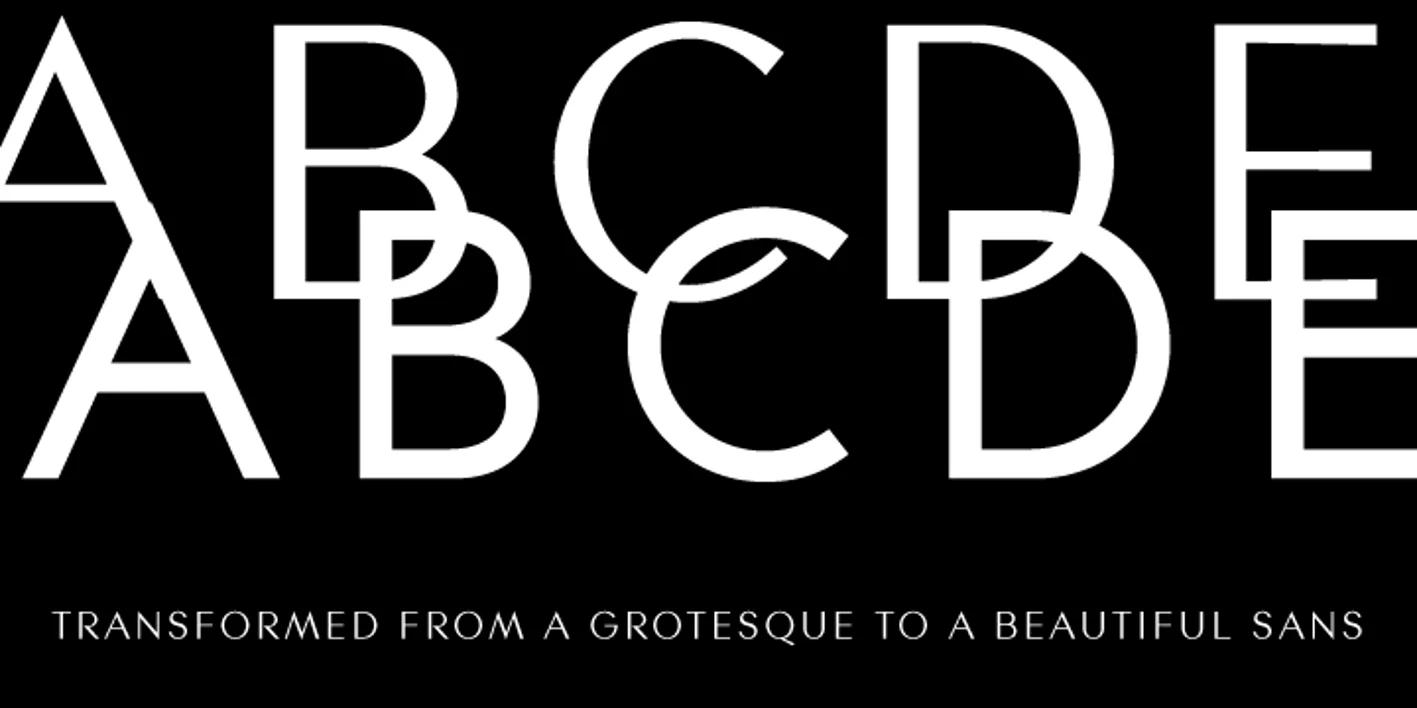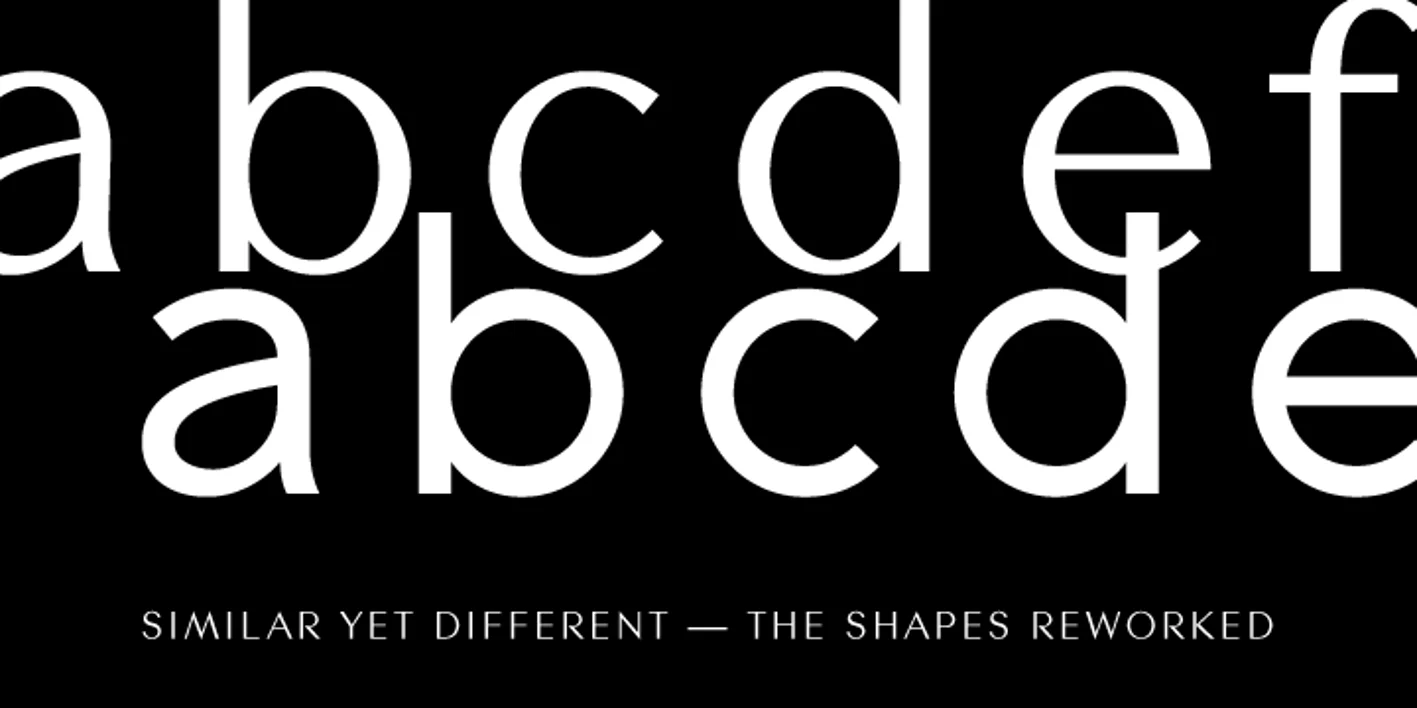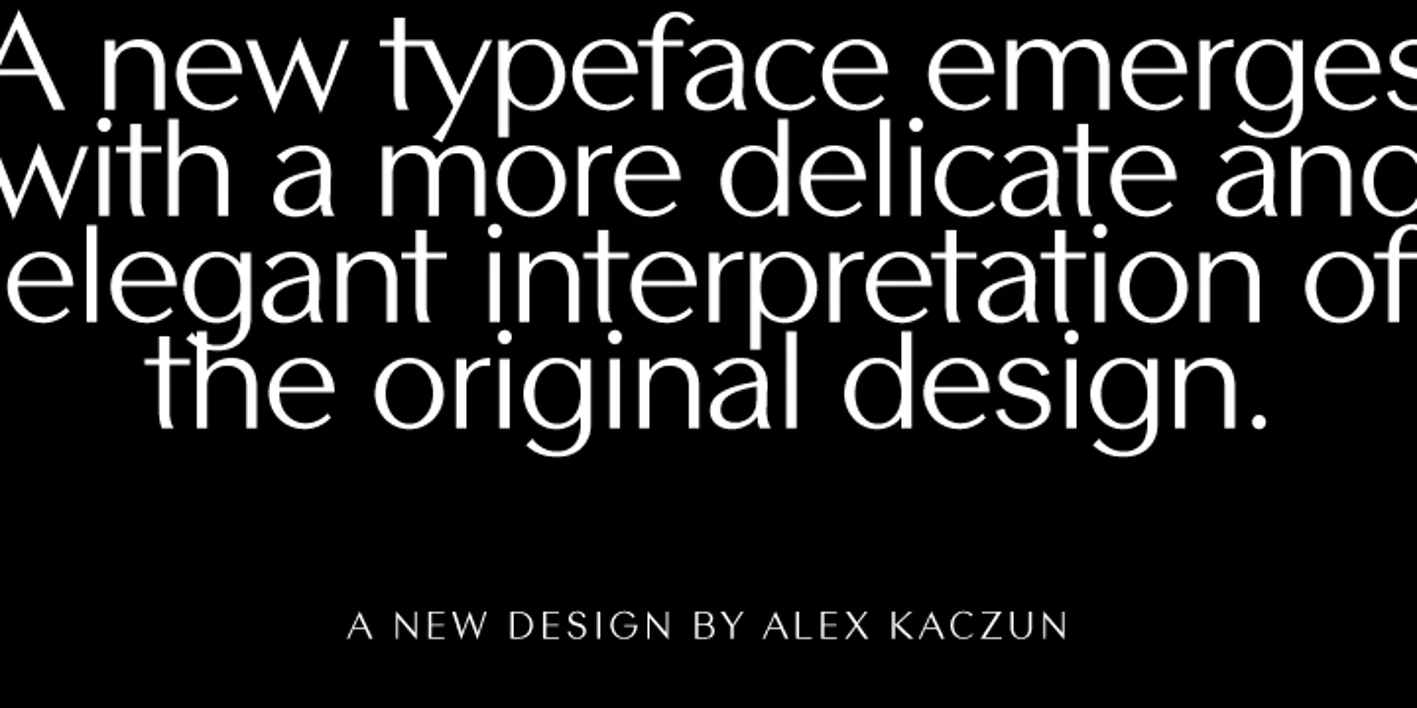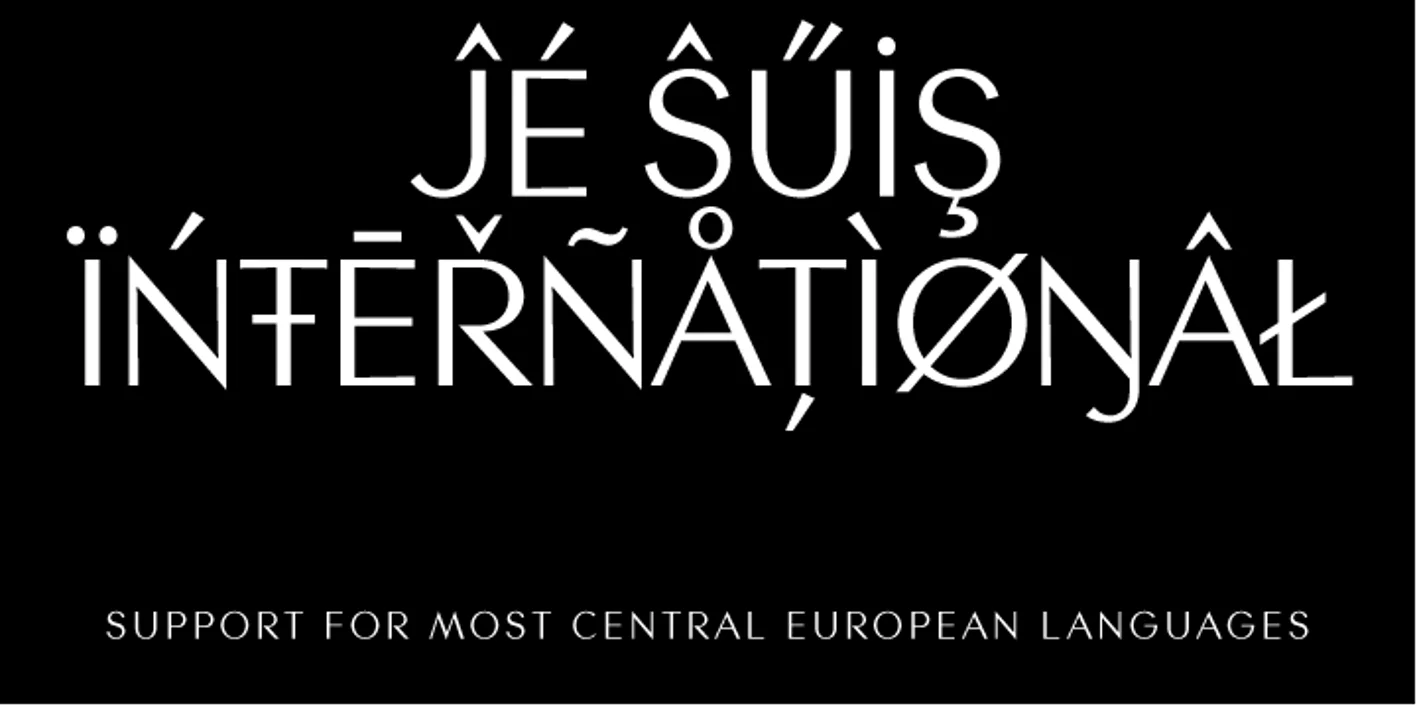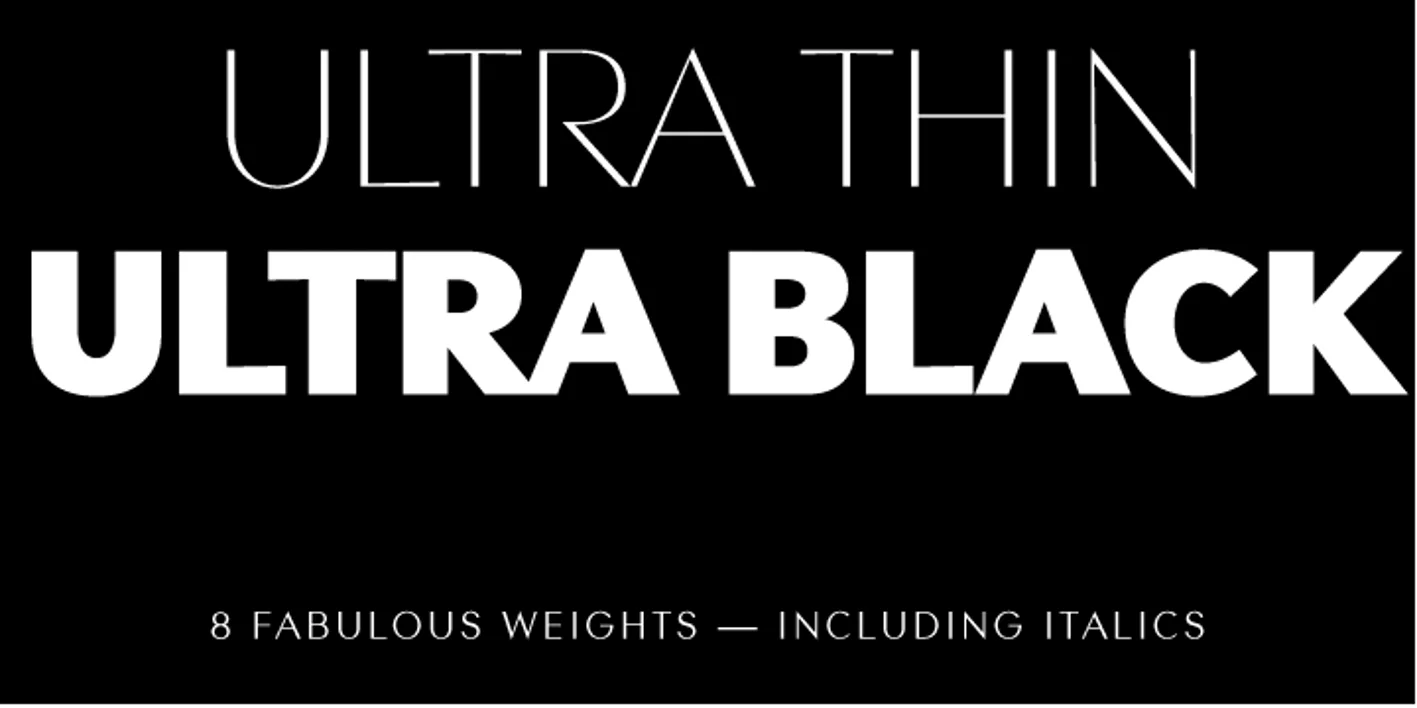
Contax Sans Font
Typography shapes perception at a subconscious level. Contax Sans leverages consistent type colour across continuous text to make every composition feel considered. The typeface brings a clean, humanist sensibility to a broad range of creative disciplines, with a confident voice that adapts to diverse briefs that holds up whether the work is print-first or screen-first.
In practice, Contax Sans proves particularly effective for startup identities, signage systems, presentation decks, social media graphics, environmental graphics. Designers reaching for it find that the type decisions feel resolved rather than laboured — a useful quality when client timelines are tight.
The range of applications extends to web design, product packaging for tech brands, packaging design, e-commerce design. That breadth is deliberate: the proportions and spacing were stress-tested across a wide range of mock briefs before the typeface was finalised.
The letterforms follow humanist construction principles: slightly flared stroke terminals, open apertures, and carefully differentiated characters (g, l, I, 1) that eliminate ambiguity in UI and wayfinding contexts. Metrics are optimised for screen rendering at all sizes.
At smaller sizes the design retains its character without becoming cluttered. This resilience across scales makes Contax Sans equally suitable for a business card and a billboard — a useful property when assets must scale across a campaign.
Motion designers building title sequences and lower thirds find Contax Sans a reliable choice for projects that demand both personality and restraint. The design avoids the self-conscious quirkiness that dates quickly, settling instead for considered distinctiveness that holds up over time.